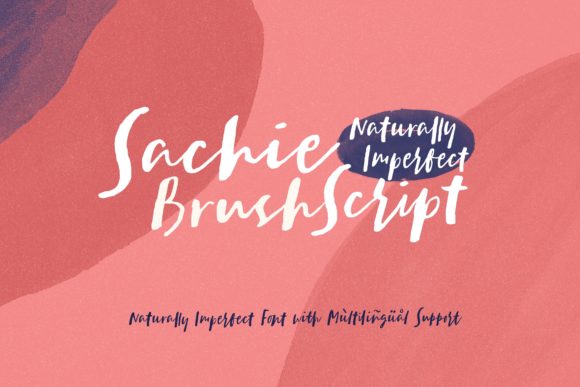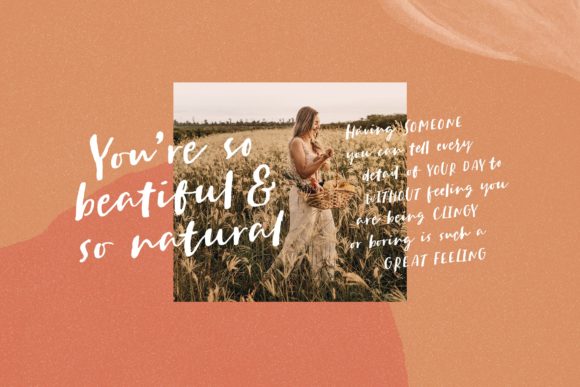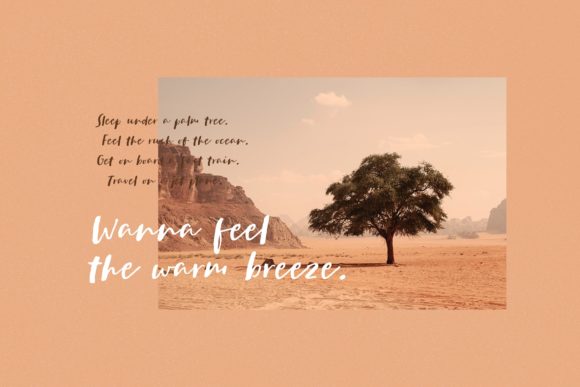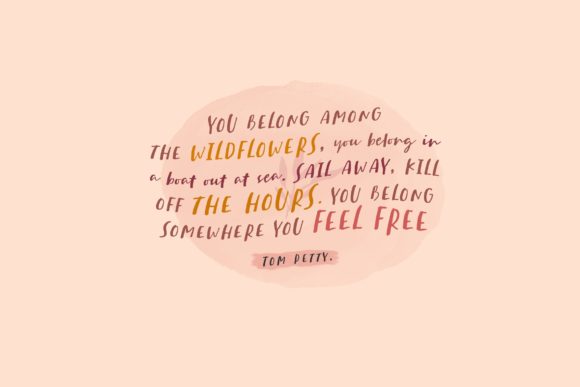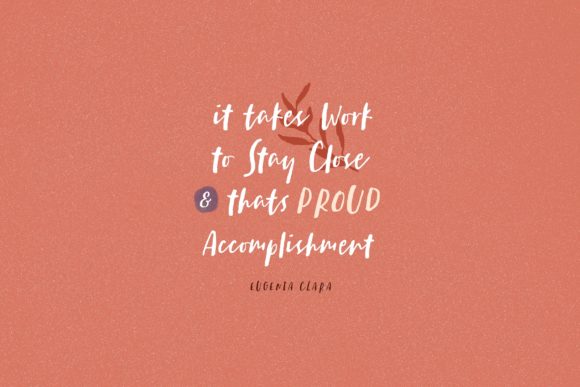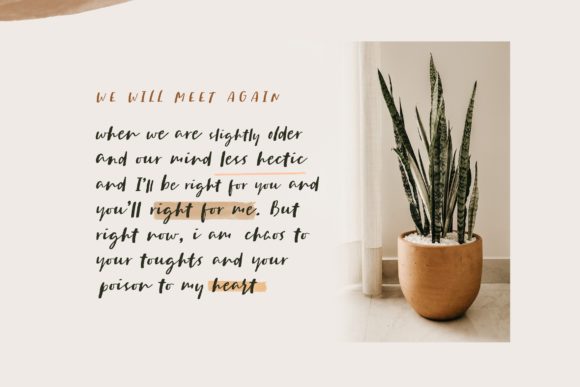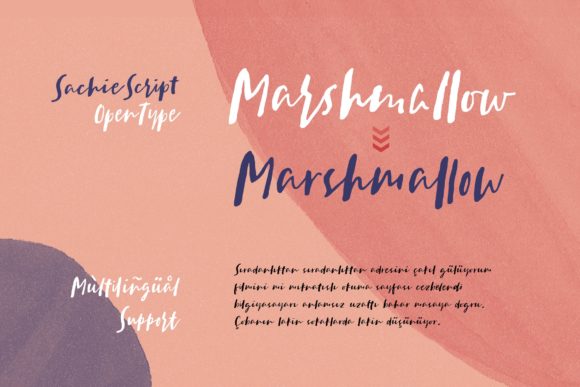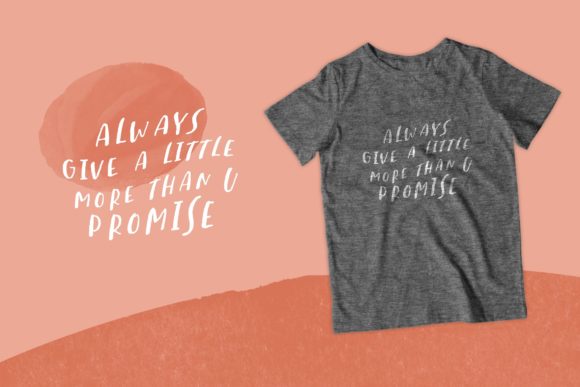
HomeScript FontsSachie Font Script Fonts Sachie Font FacebookXPinterestWhatsApp Sachie Font Poster 2 Sachie Font Poster 3 Sachie Font Poster 4 Sachie Font Poster 5 Sachie Font Poster 6 Sachie Font Poster 7 Sachie Font Poster 8 About Sachie Font Sachie is a cool and fun handwritten font with a unique style. Get inspired by its authentic vibe! DOWNLOAD ON CREATIVE FABRICAThis font is sold and delivered by Creative Fabrica. Font Canyon may earn a commission if you buy through this link. People also explored Resty Font Beauty Magnolia Line Monogram Font Phillips Font Oscar Font Roman Love Story Font Faustine Font Santa Font Martina Font Juanview Font 289 0 TagsSachie Font Previous articleMaines FontNext articleKirani Font LEAVE A REPLY Cancel reply Comment: Please enter your comment! Name:* Please enter your name here Email:* You have entered an incorrect email address! Please enter your email address here Website: Save my name, email, and website in this browser for the next time I comment. Personal Use Free Hello, How Are You? Personal Use Free Read more about this font Hysteria Santa Personal Use Free Read more about this font Catandra Script Personal Use Free Read more about this font 1980 Portable Personal Use Free Read more about this font BLOG Best Fonts for T-Shirt Design – Top 2025 Picks In 2025, t-shirt design has become more than just fashion—it's a form of self-expression. Whether you're... Best Fonts for YouTube Videos: Make Your Thumbnails Stand Out Elegant Wedding Invitation Fonts – Handwritten & Script Fonts How to Install and Use Fonts on Windows, macOS, and Web Projects